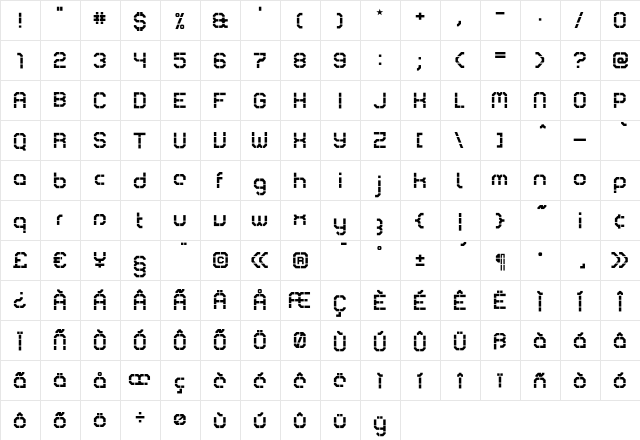
Comsat Navy-Station
Design Context for Comsat Typeface
Comsat takes a measured approach to typography — its balanced proportions and neutral character make it a reliable workhorse for both digital and print work.